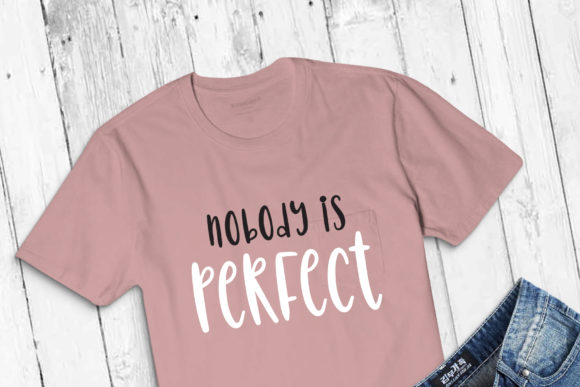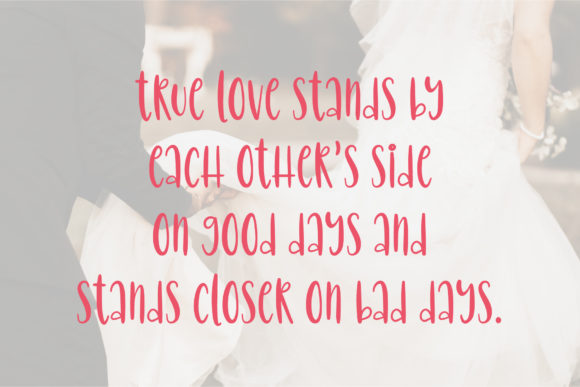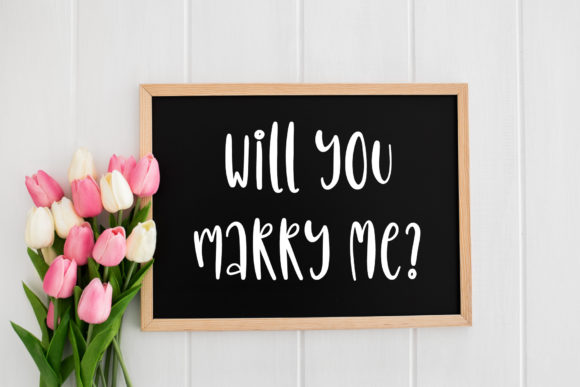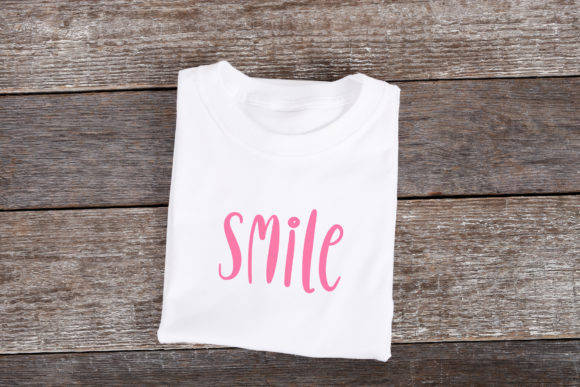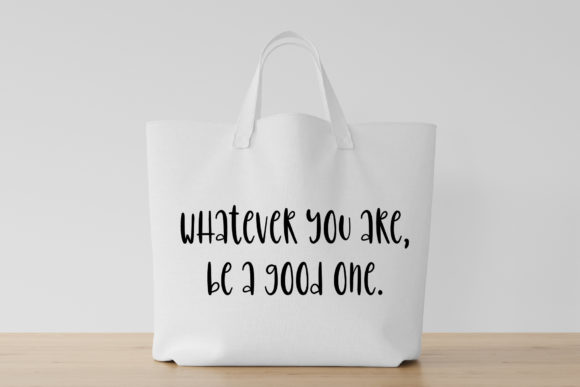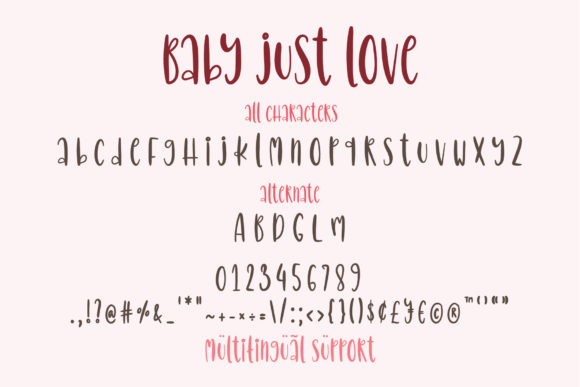
Introduction to Baby Just Love Font Font
Fonts play a crucial role in design, and the Baby Just Love Font font is a typeface that brings both character and versatility to any project. Whether you’re working on a branding project, a website, or a print design, the Baby Just Love Font font offers a unique style that can elevate your work.
| 📌 Font Name | Baby Just Love Font |
| 👤 Author | AquariiD |
Baby Just Love is a friendly handwritten font.
Its playful and quirky appearance makes this font the perfect fit for your social media posts, posters, cards and cute greeting cards .
Key Features of Baby Just Love Font Font
Why Choose Baby Just Love Font Font?
The Baby Just Love Font font is more than just a typeface – it’s a design tool that helps you communicate your message with style and clarity. Its unique character set and versatile design make it suitable for a wide range of applications, from elegant invitations to bold headlines.
With its carefully crafted letterforms and balanced proportions, the Baby Just Love Font font ensures readability and visual appeal across all mediums.
What makes Baby Just Love Font font special?
The Baby Just Love Font font stands out with its unique design, exceptional readability, and versatility across various design applications.